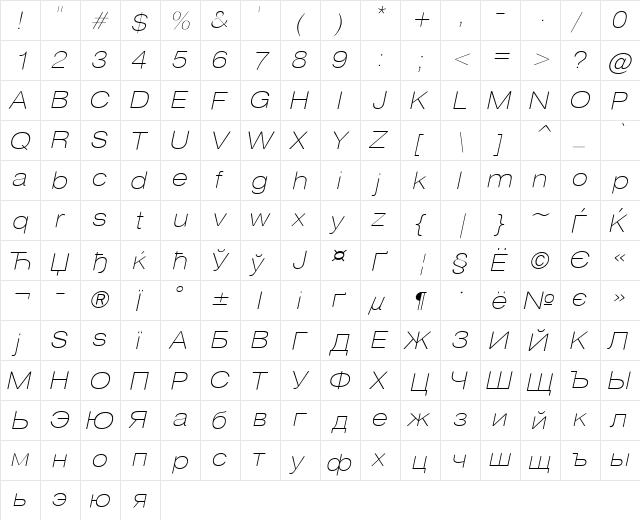
HeliosExtThin Regular
Design Context for HeliosExtThin Typeface
HeliosExtThin takes a measured approach to typography — its balanced proportions and neutral character make it a reliable workhorse for both digital and print work. Its slender proportions lend an understated elegance to any composition.
Pro Tip: Use HeliosExtThin in both headline and body roles to test its range before committing to a single application.